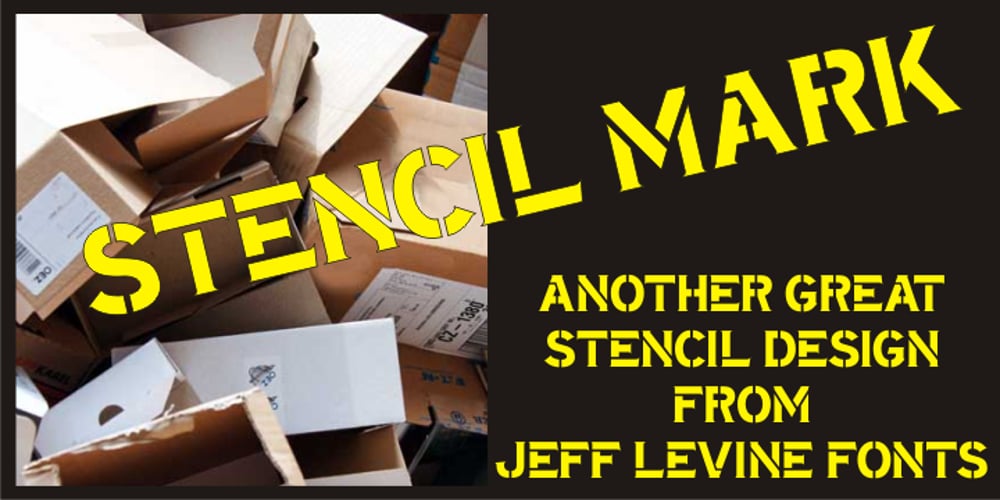
Stencil Mark JNL Font Family was designed by Jeff Levine and published by Jeff Levine. Stencil Mark JNL contains 1 styles and family package options. The set of vintage brass alphabet stencils that inspired Stencil Mark JNL was manufactured by the Chicago Firm of Meyer and Wenthe. Pete Skoglund of Unadilla, NY was selling a set of these stencils on Ebay, and was nice enough to provide Jeff Levine some images to use as models for the design of this typeface.